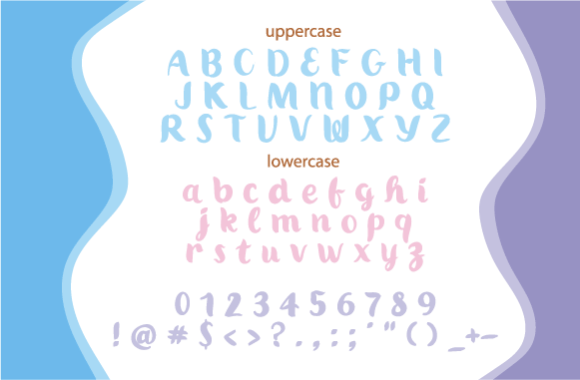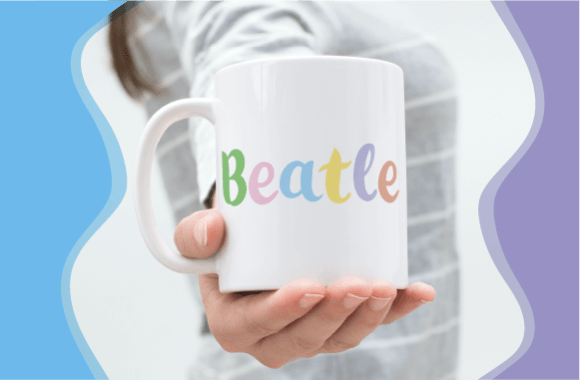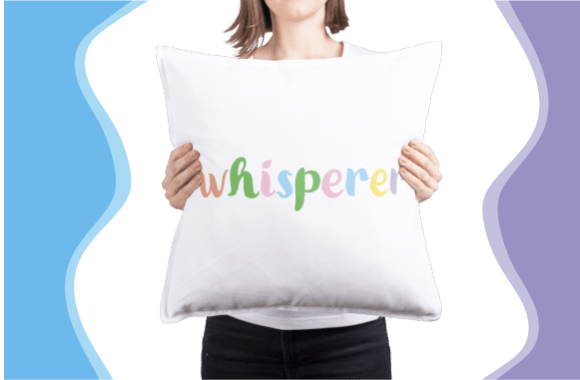
Bettie Font: The Ultimate Friendly Handwritten Font for Designers and Crafters
In the world of typography, fonts play a crucial role in conveying emotions and setting the tone for various design projects. If you’re a designer, crafter, or simply someone who loves creating digital content, you’re probably always on the lookout for the perfect font to make your work stand out. That’s where Bettie Font comes in – a childish, easy-to-read handwritten font that’s bursting with friendliness.
What is Bettie Font?
Bettie Font is a delightful, hand-crafted typeface that’s designed to bring a touch of warmth and approachability to your designs. Its playful, cursive strokes and rounded edges make it an instant favorite among designers and crafters who want to add a personal touch to their work. Whether you’re creating digital designs, presentations, greeting cards, or craft projects, Bettie Font is the perfect choice to convey a sense of friendliness and approachability.
Characteristics of Bettie Font
So, what makes Bettie Font so special? Here are some of its key characteristics:
• Childish and playful: Bettie Font has a youthful, carefree vibe that’s perfect for designs that require a touch of whimsy.
• Easy-to-read: The font’s clear, flowing strokes make it easy to read, even at smaller sizes.
• Handwritten: Bettie Font has a beautifully crafted, handwritten feel that adds a personal touch to your designs.
• Versatile: This font is suitable for a wide range of design projects, from digital designs to craft projects, presentations, and greeting cards.
Uses of Bettie Font
Bettie Font is an incredibly versatile typeface that can be used in a variety of design projects. Here are some ideas to get you started:
• Crafts: Use Bettie Font to add a personal touch to your craft projects, such as scrapbooking, card making, and DIY gifts.
• Digital design: Bettie Font is perfect for digital designs, such as social media graphics, blog posts, and website headers.
• Presentations: Add a touch of friendliness to your presentations with Bettie Font, making them more engaging and approachable.
• Greeting cards: Use Bettie Font to create beautiful, handmade-style greeting cards for special occasions.
Why Choose Bettie Font?
With so many fonts available, why choose Bettie Font? Here are just a few reasons:
• Unique and distinctive: Bettie Font has a one-of-a-kind look that will set your designs apart from the rest.
• Easy to use: This font is incredibly easy to read and works well in a variety of design contexts.
• Friendliness: Bettie Font conveys a sense of warmth and approachability, making it perfect for designs that require a personal touch.
In conclusion, Bettie Font is a delightful, handwritten typeface that’s perfect for designers and crafters who want to add a touch of friendliness to their work. With its childish, playful vibe and easy-to-read strokes, this font is sure to become your go-to choice for a wide range of design projects. Whether you’re creating digital designs, presentations, greeting cards, or craft projects, Bettie Font is the perfect choice to convey a sense of warmth and approachability.